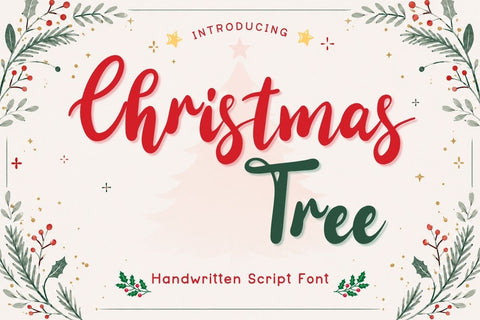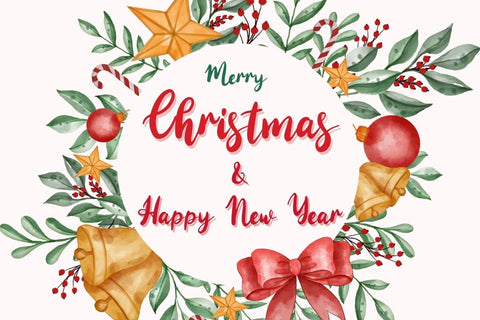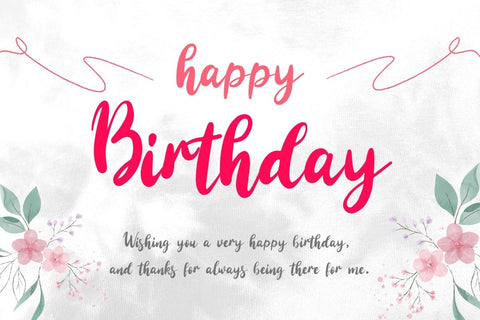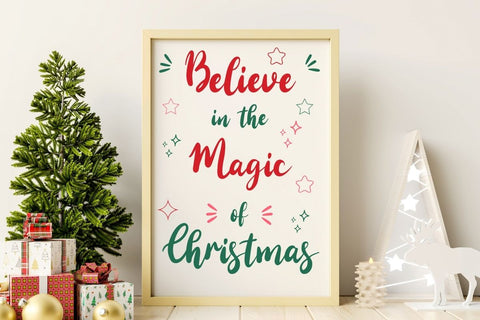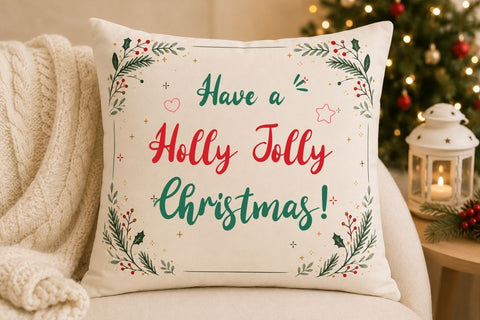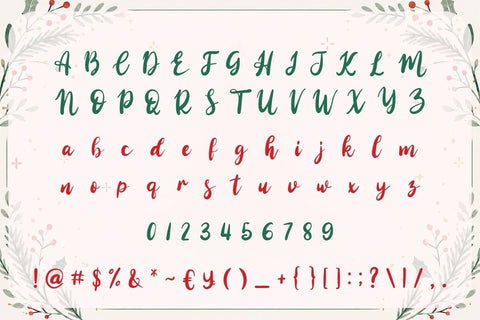
Christmas Tree - Christmas Script Font
Christmas Tree is a cheerful handwritten script font designed to bring warmth and festive charm to every project.
Its smooth brush-style lettering is perfect for Christmas crafts, greeting cards, gift tags, mugs, pillows, signs, apparel, stickers, ornaments, invitations, and holiday decorations. Whether you're creating products for Cricut, Silhouette, sublimation, or printable designs, this font adds a joyful handmade touch.